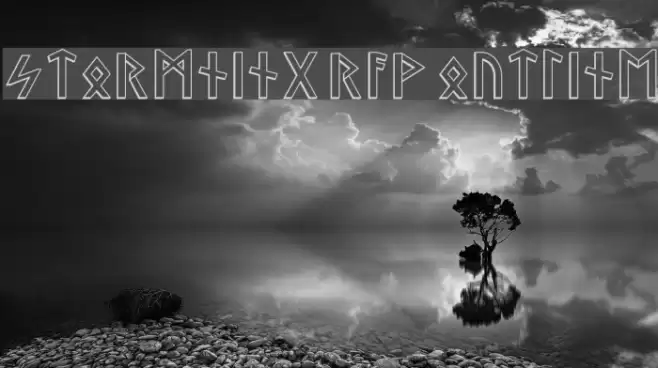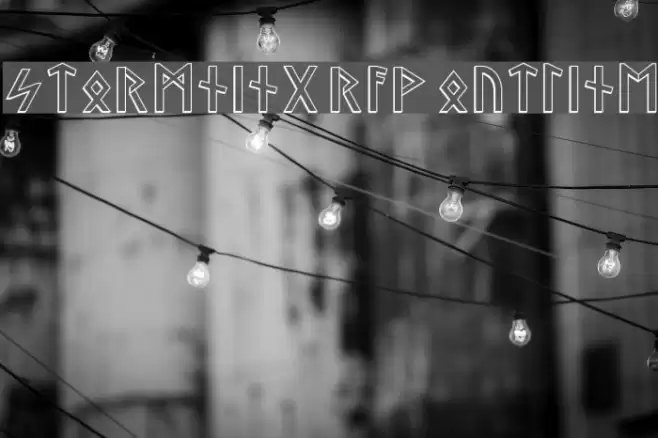
Stormning Raw Outline Font
Stormning Raw Outline Description
This font features a unique, angular design with a raw, outlined appearance. The characters are constructed with bold, geometric lines that create a striking visual impact. The style is reminiscent of ancient runes or tribal markings, giving it a distinct and edgy look. The uppercase and lowercase letters maintain a consistent design theme, with sharp angles and a sense of movement. The numbers and special characters follow the same aesthetic, ensuring a cohesive appearance across all elements. This font is ideal for projects that require a bold and unconventional typeface.
An angular, geometric font with a raw, outlined style reminiscent of ancient runes from Uncategorized fonts.
- Overall Style: Modern, Edgy